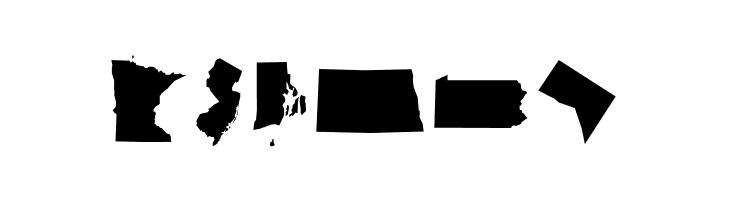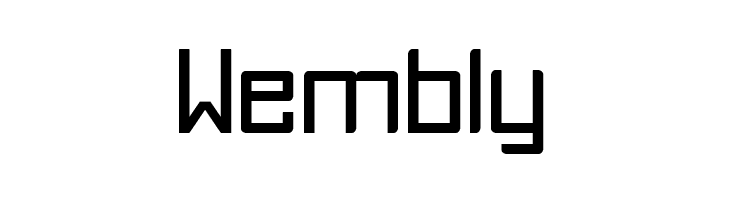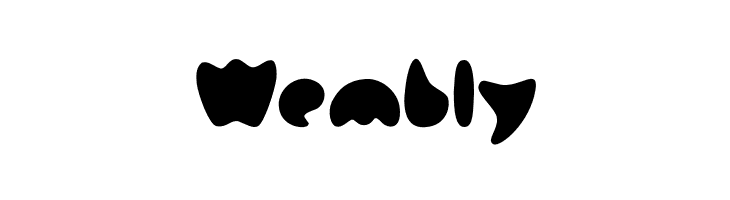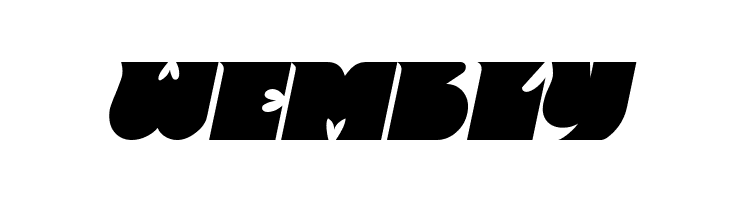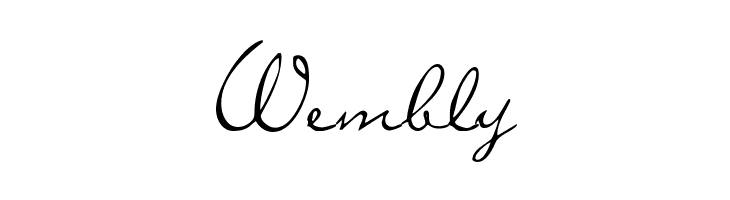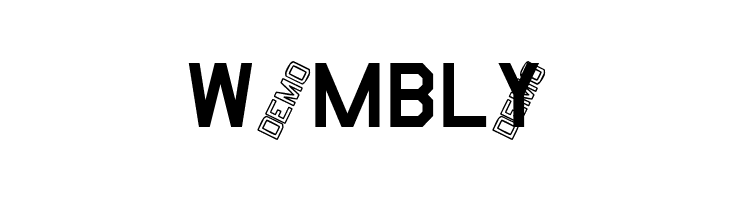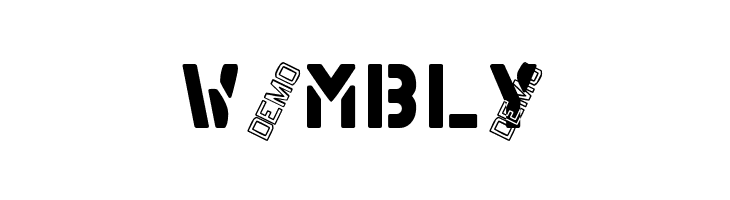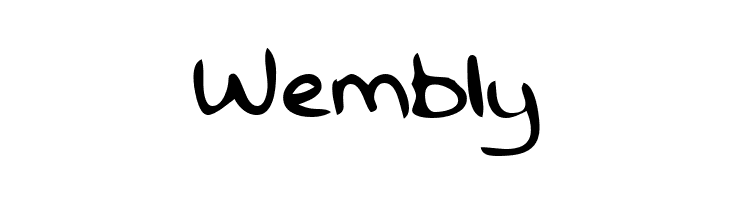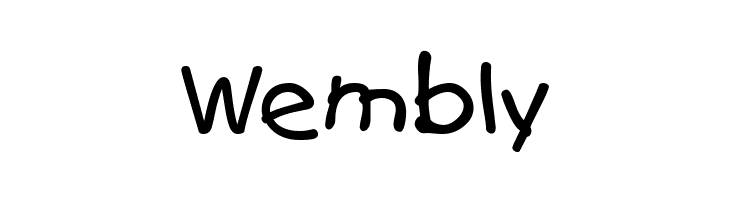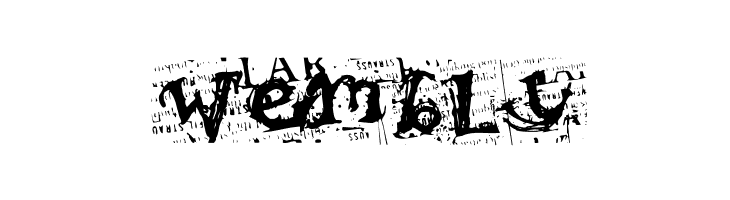
A bold, gothic-inspired font with sharp, angular lines and intricate detailing.
A playful, hand-drawn font mimicking a child's handwriting.
A distressed, grungy font with a chaotic and textured appearance.
A playful, handwritten font with tall, narrow characters and a whimsical style.
A bold, decorative font with characters enclosed in star-adorned frames.
A playful font with characters inside light bulb shapes, ideal for creative projects.
A playful, egg-shaped decorative font with a hand-drawn style.
A segmented, digital display-style font with a bold, geometric appearance.
A playful, narrow font with rounded edges and consistent stroke width.
A playful, handwritten font with tall, narrow letters and consistent stroke width.
A playful, bold font with rounded, bubble-like characters perfect for fun projects.
A modern, geometric font with smooth curves and clean lines.
Ornamental dingbat set with swirling, floral, and abstract motifs.
A playful, handwritten font with a whimsical and casual style.
A playful, hand-drawn font with uneven strokes and a whimsical style.
A bold, classic serif font with high contrast and elegant details.
A high-contrast serif font with elegant, sharp serifs and a classic style.
A decorative font featuring bold silhouettes of U.S. state shapes.
A geometric, modern font with consistent stroke width and angular design.
A playful, bubbly font with thick, rounded shapes and a whimsical style.